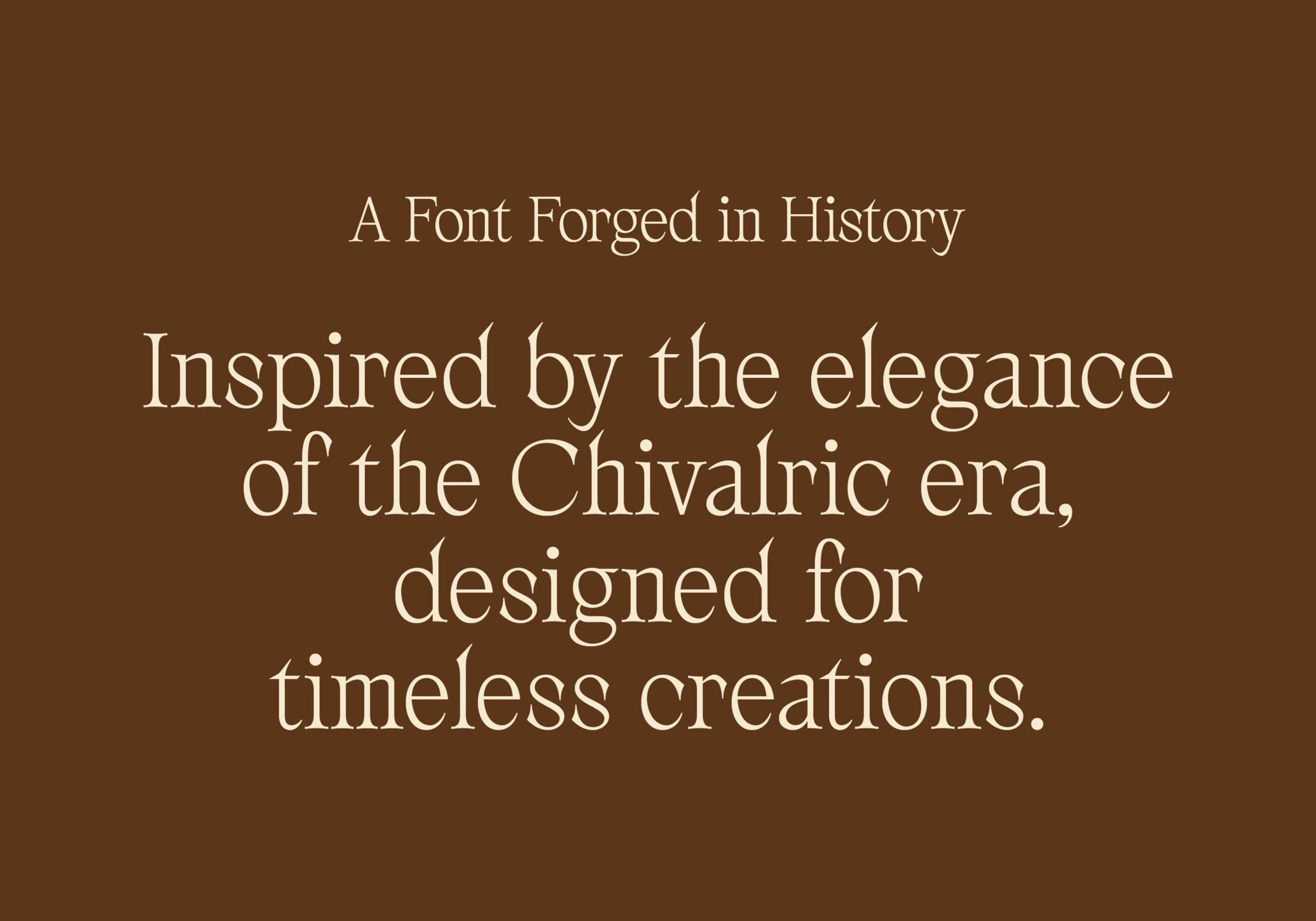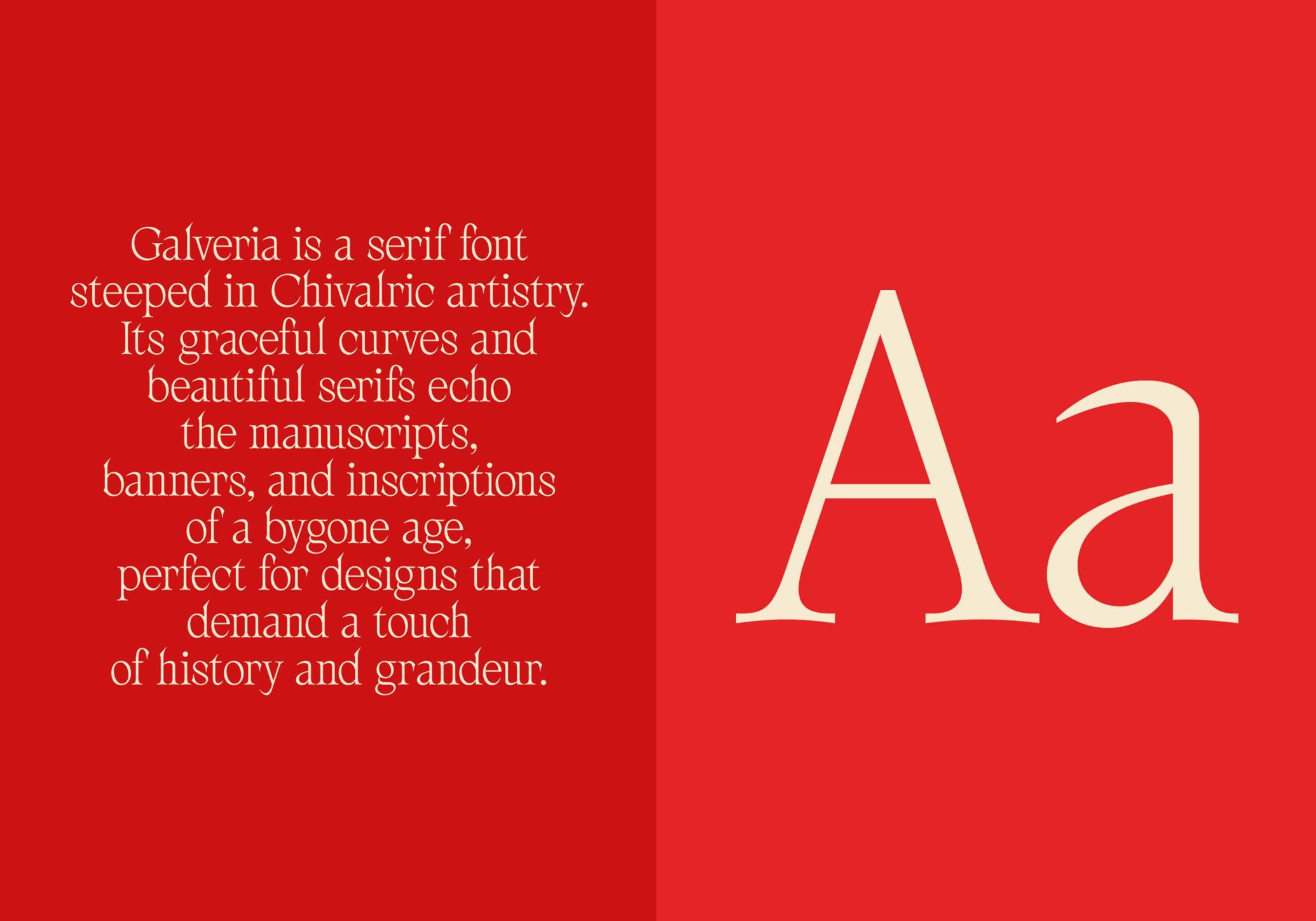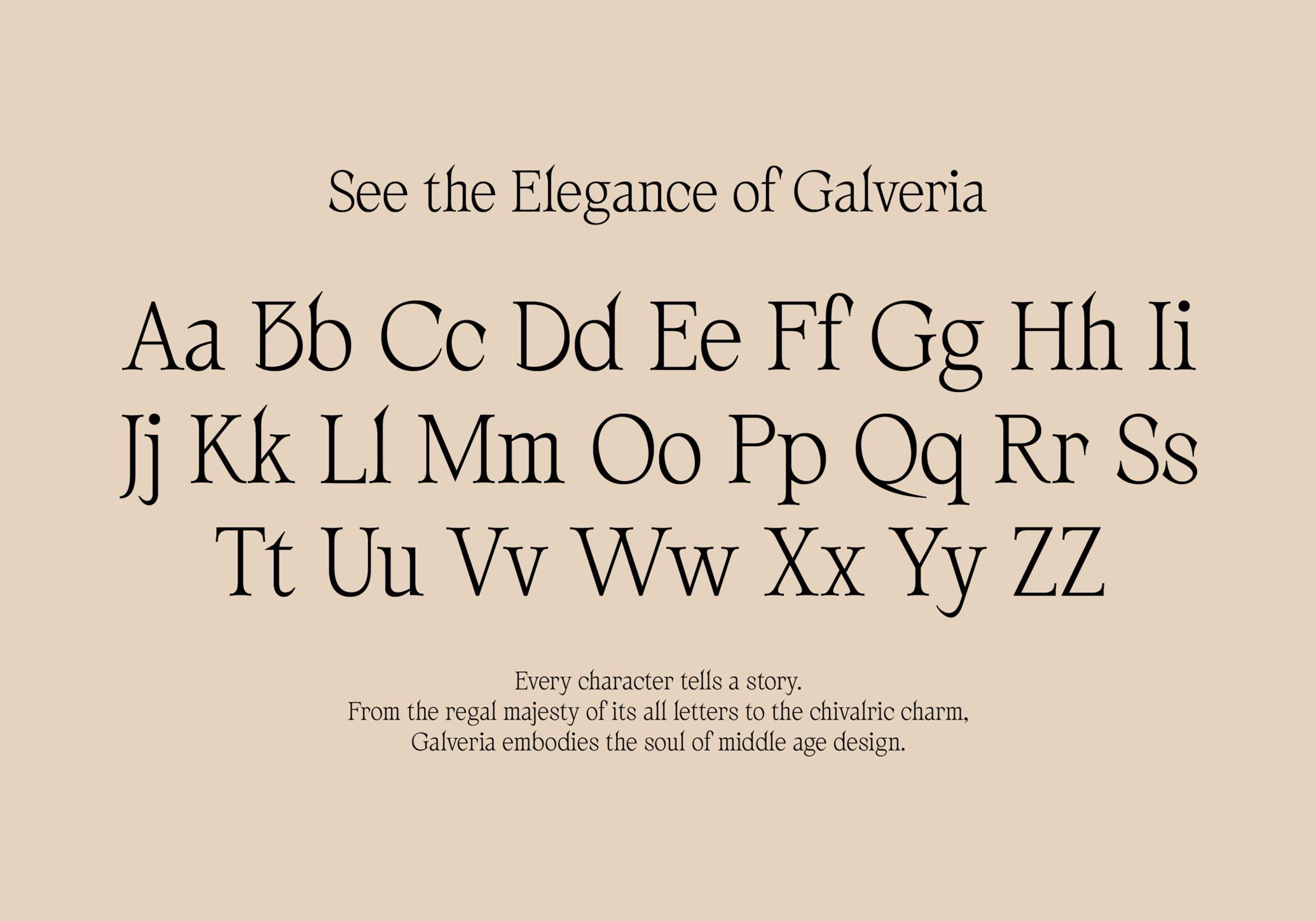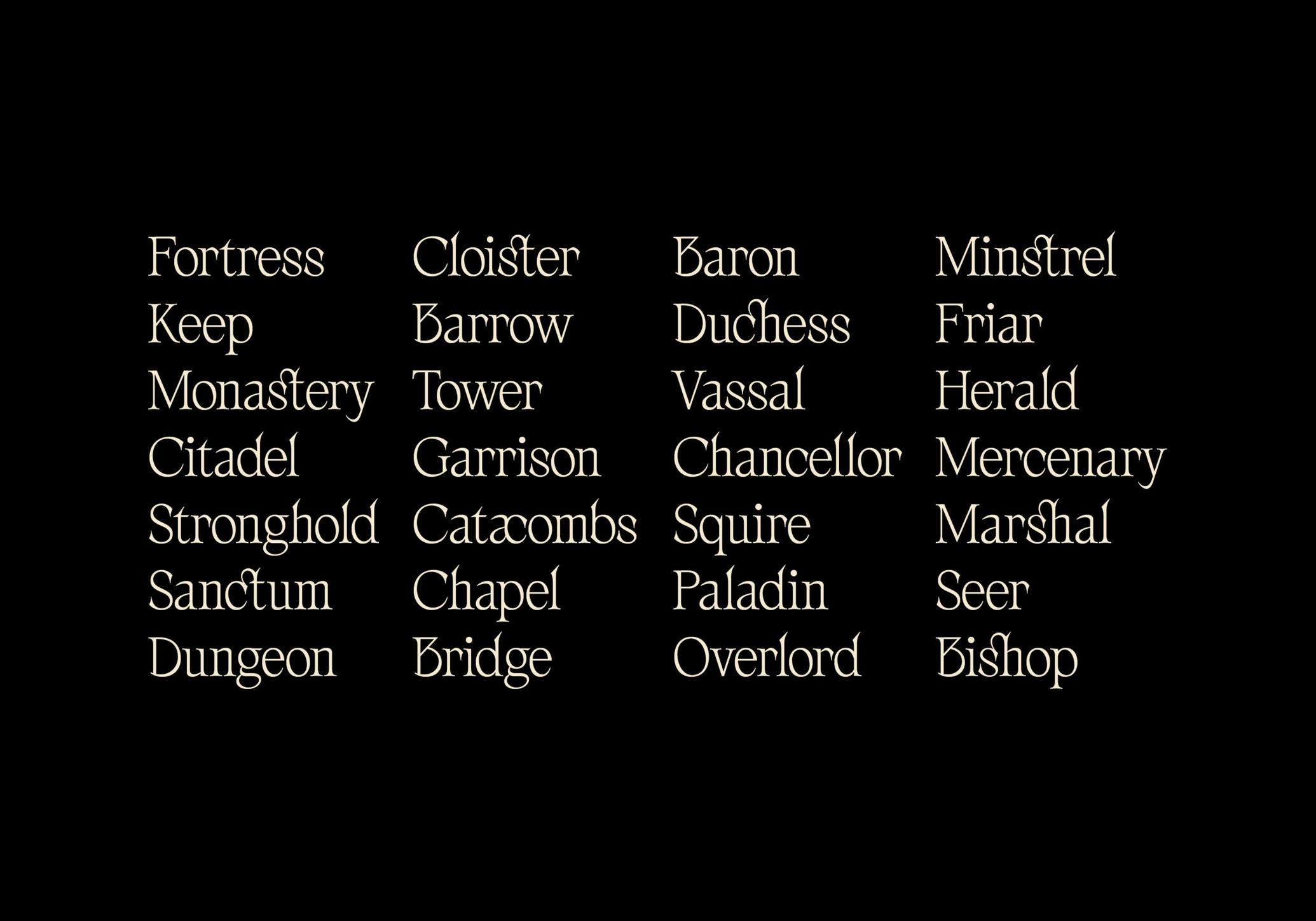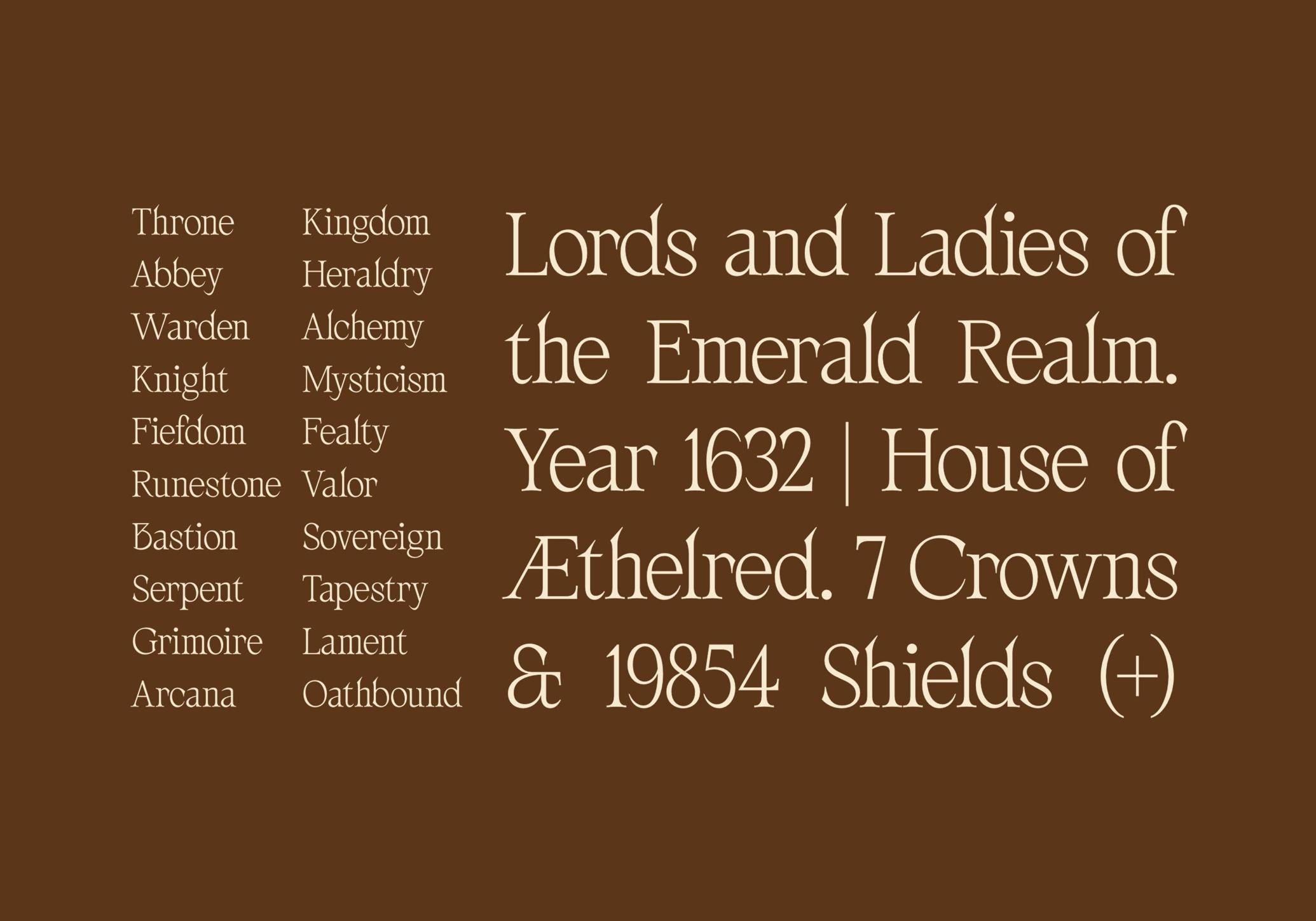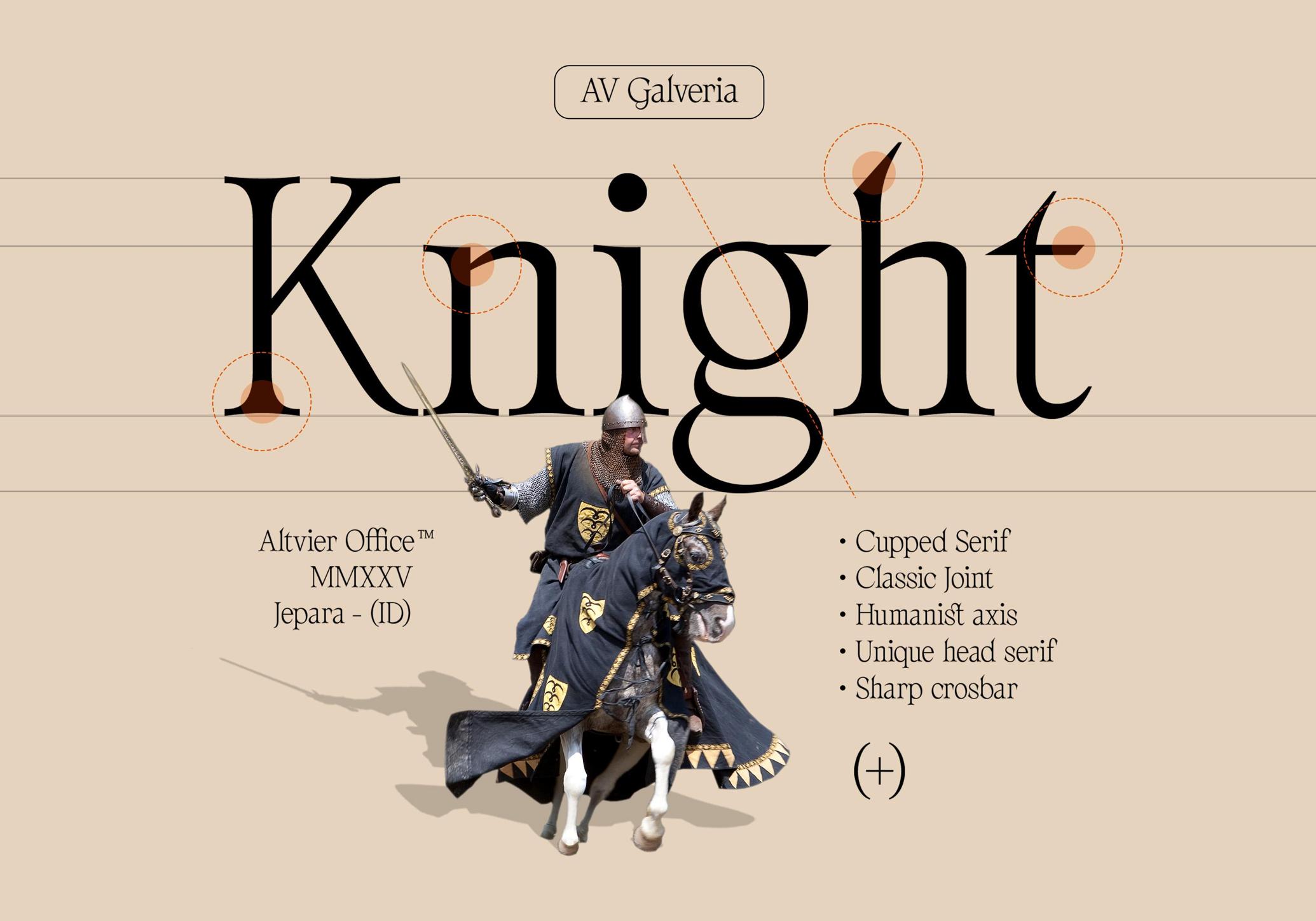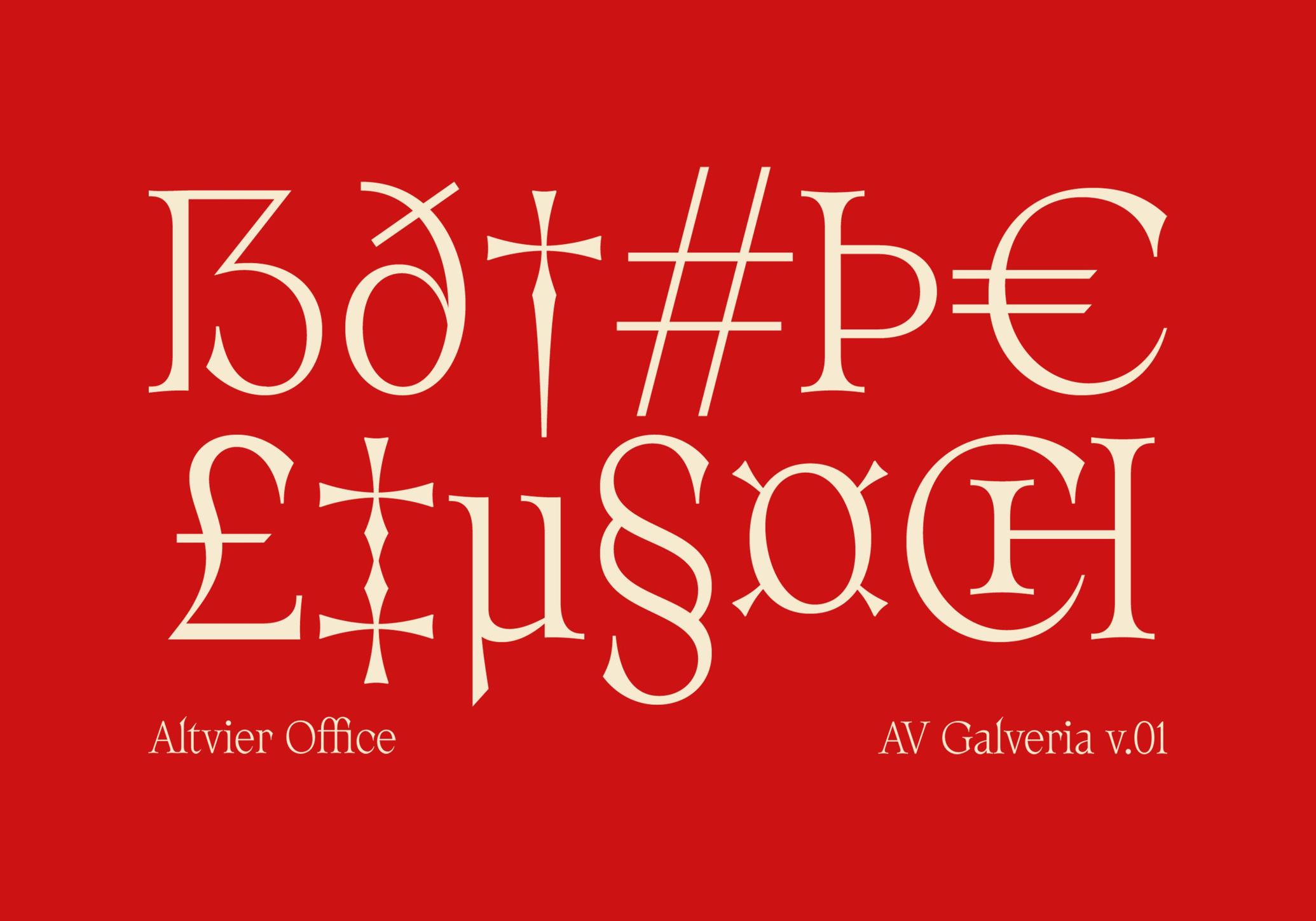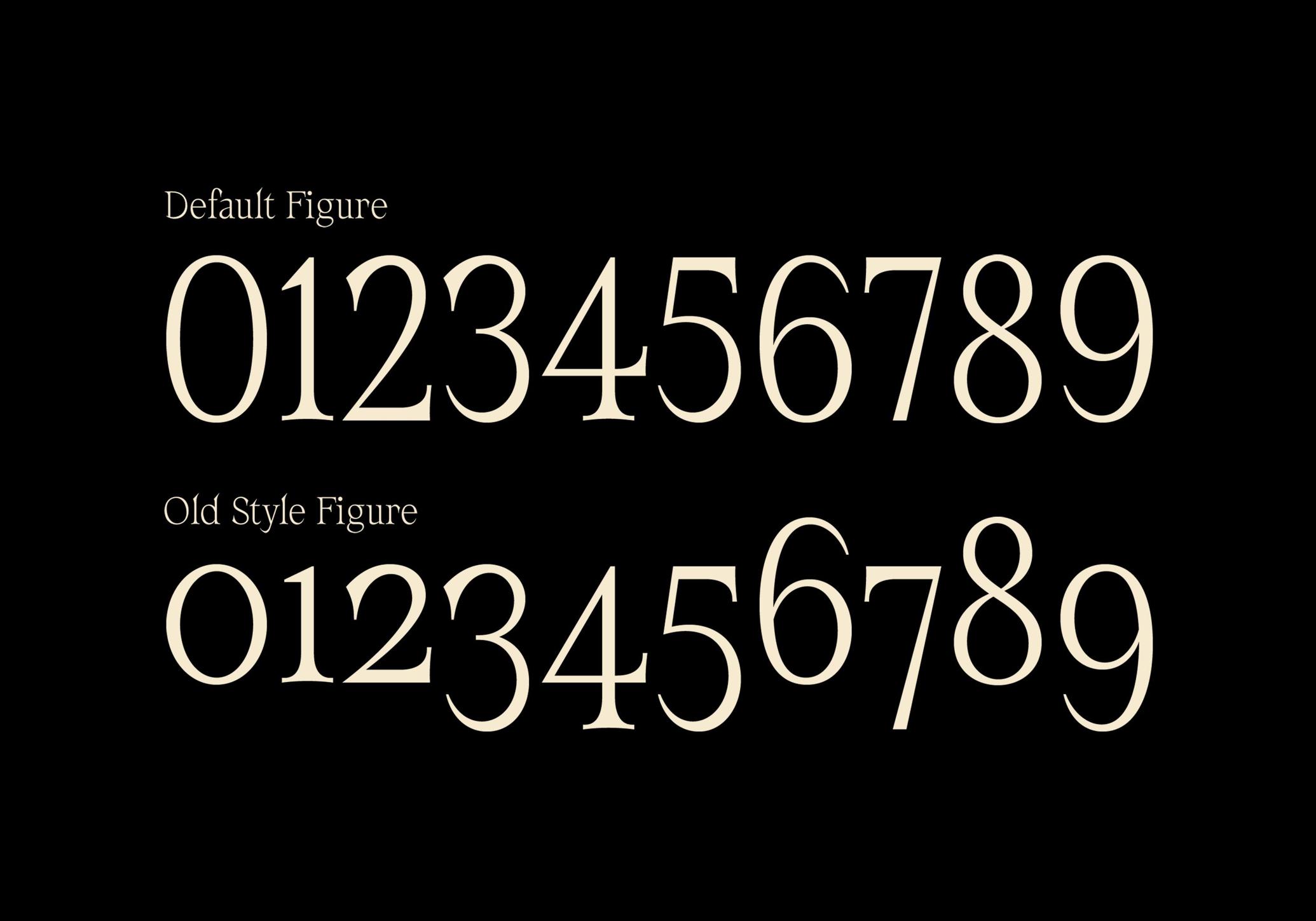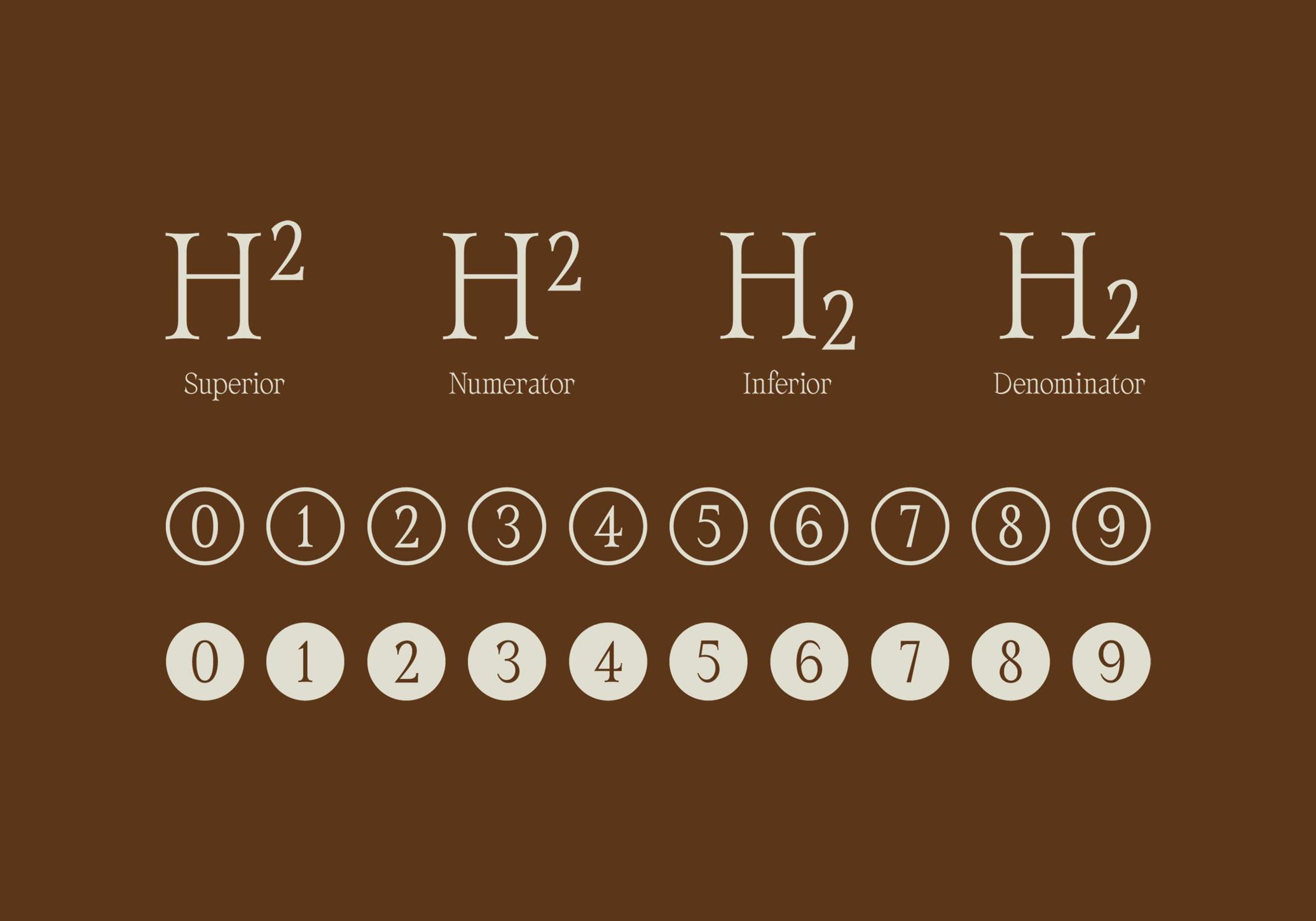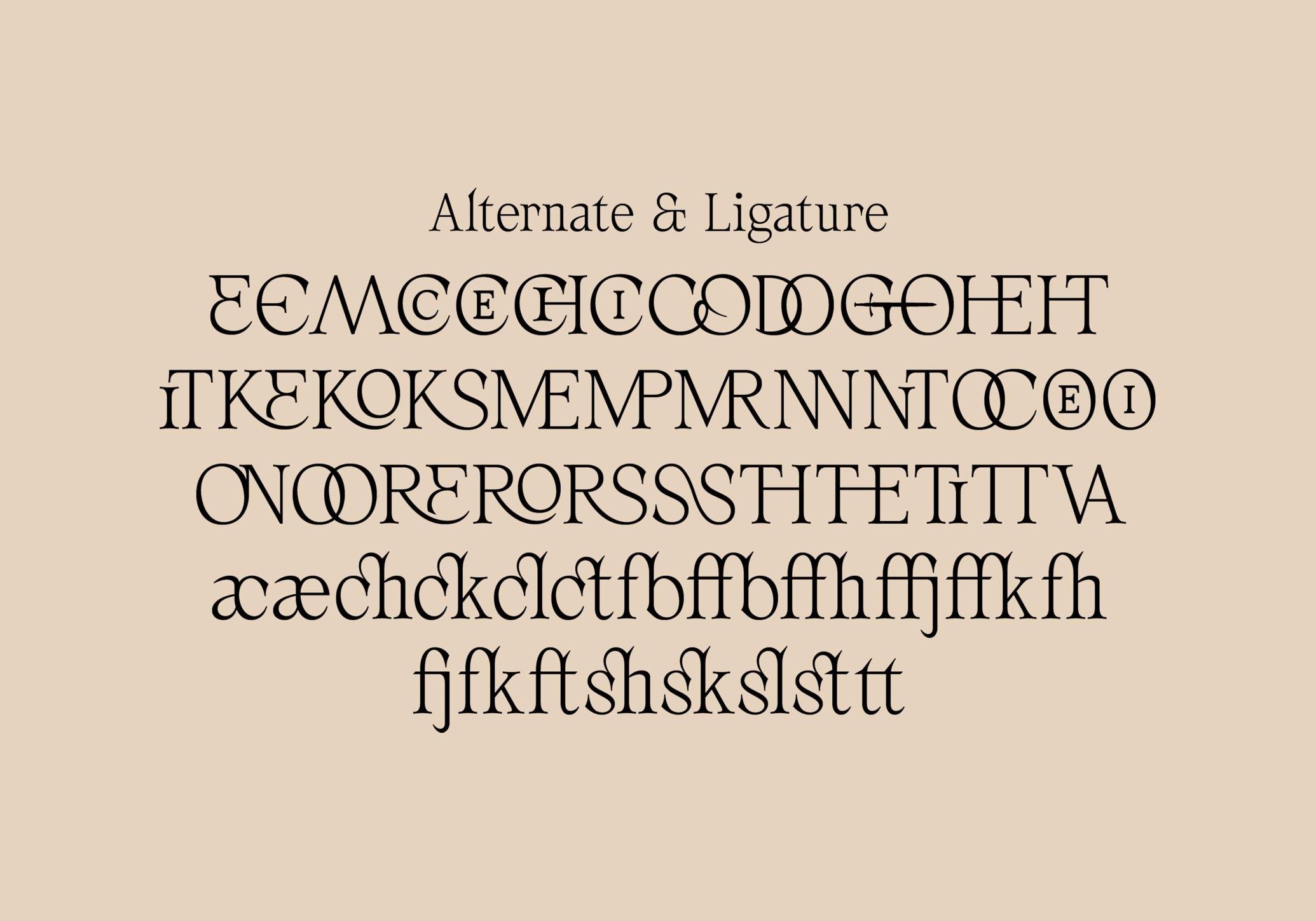
AV Galveria — Display Serif Font
AV Galveria
AV Galveria walks a fine line between classic elegance and typographic drama. Its letterforms reproduce medieval script and early printed books, but with sharp diagonals and unexpected ligatures that place it in contemporary design territory. The result is a serif that feels ceremonial without slipping into pastiche — part blackletter, part Roman, part something entirely its own.
It works beautifully in editorial headlines, identity systems for historic venues, book covers, university branding, wine labels, speculative fiction titles, packaging for artisanal goods, and fashion lookbooks.
The font includes:
- Uppercase and lowercase sets,
- Accented characters,
- Old-style and lining figures,
- Ligatures & alternates,
- Swash capitals,
- Enclosed numbers,
- Full punctuation,
- Mathematical symbols, and multiple numeral styles (superior, denominator, numerator, etc.).